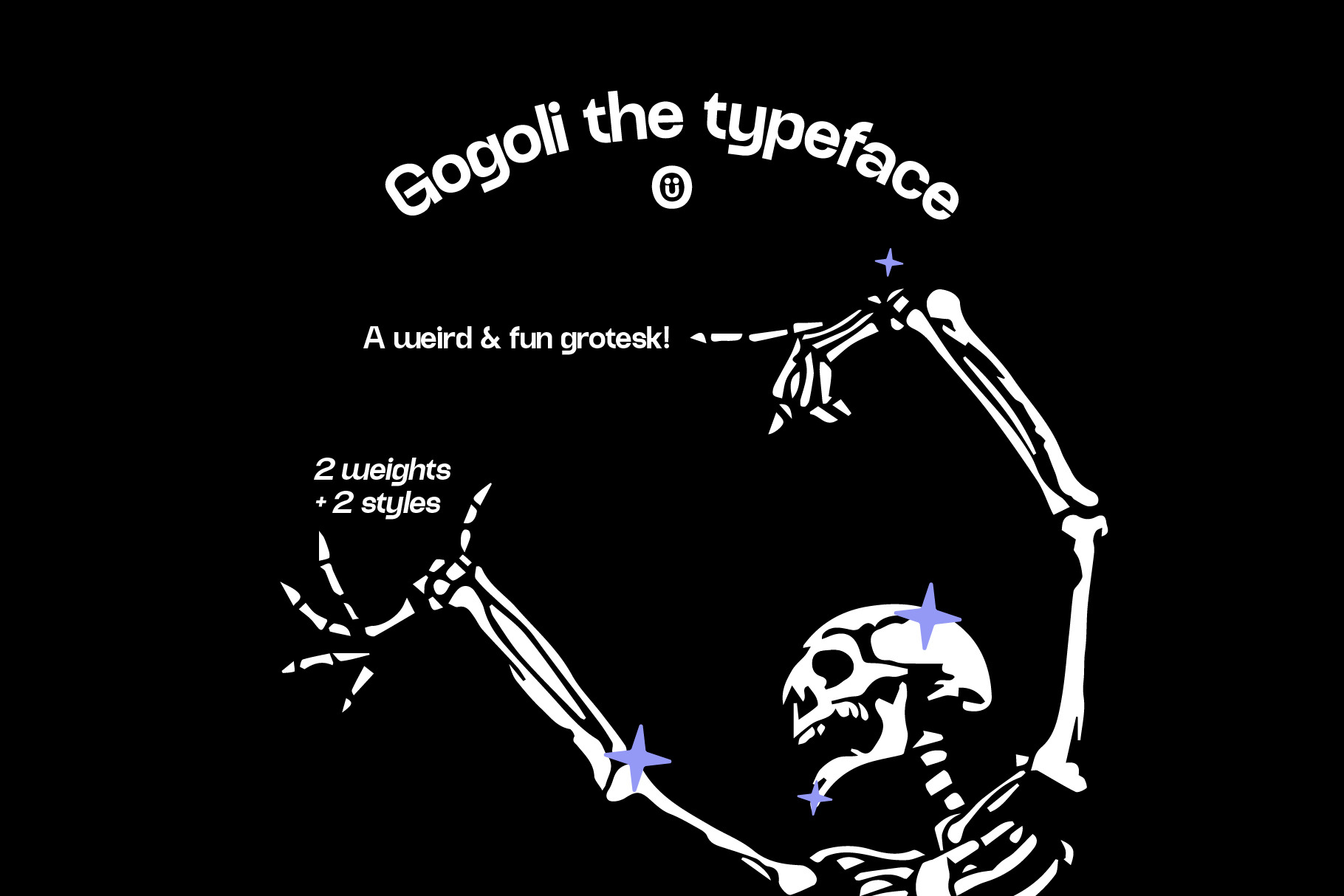
Gogoli Grotesk is a new era grotesk. It features a mixture of different forms of letters combined, making it a fun type piece.
Comes in 2 weights & 2 styles, Regular & Black